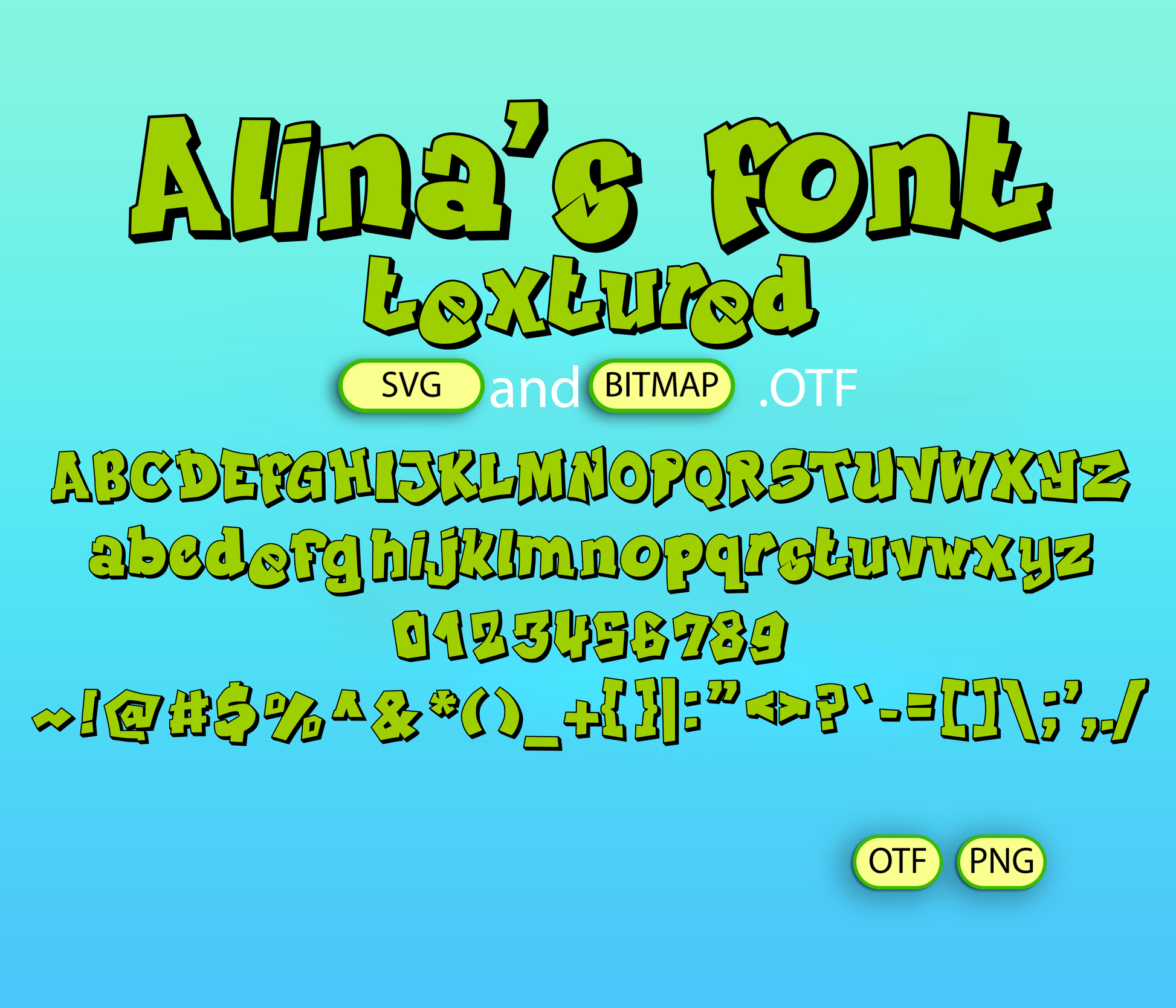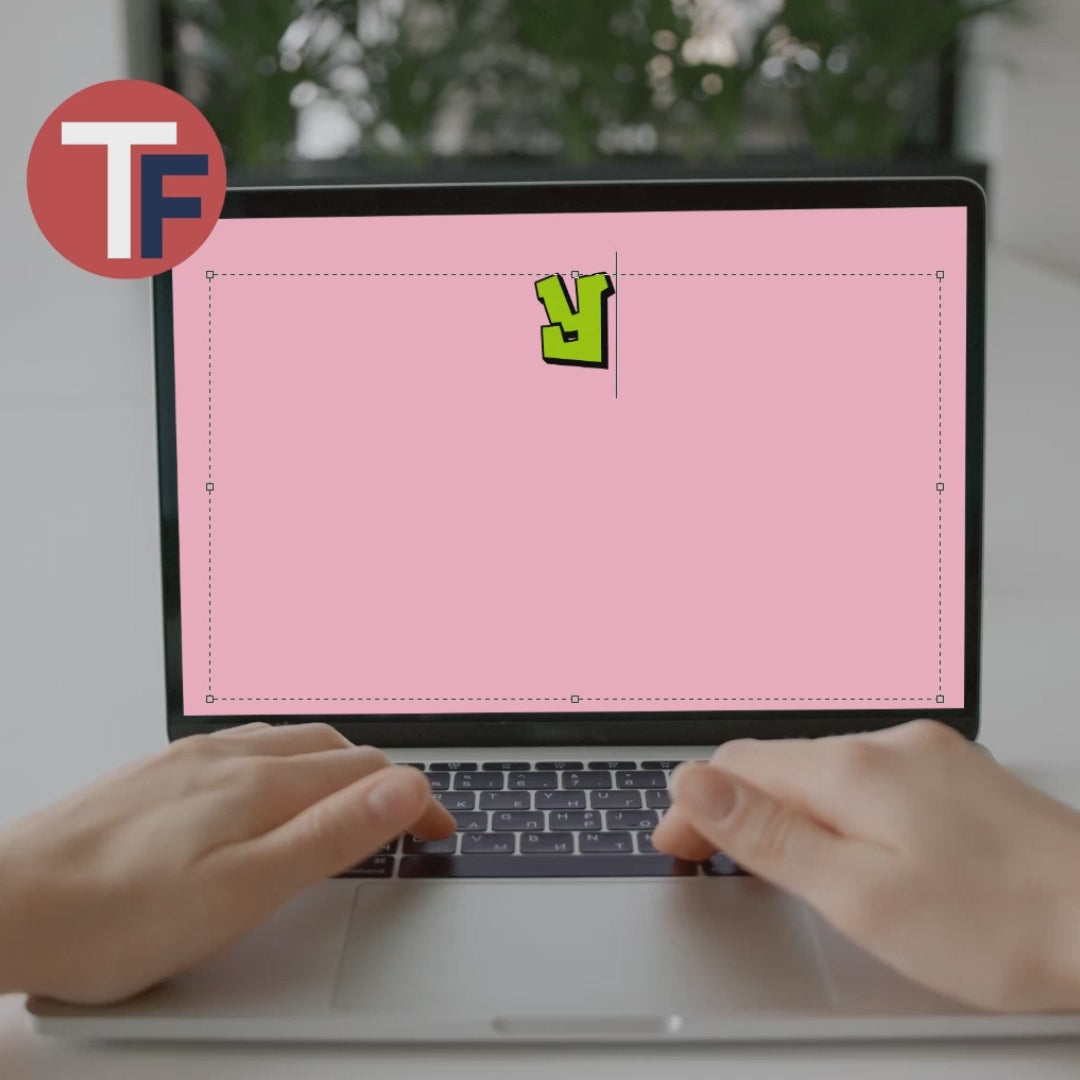
Iconic '90s Graffiti Font Textured
Iconic '90s Graffiti Font
Relive the '90s with our Iconic '90s-inspired font, capturing the vibrant and charismatic essence of a beloved sitcom. This font exudes the energy and bold style of the era, perfect for projects that channel the fun and flair of the time. Whether you're designing retro apparel, creating engaging digital content, or crafting unique merchandise, this font ensures your creations stand out with authentic '90s vibes.
Our font takes inspiration from the graffiti-style lettering and urban aesthetic that defined the show's look and feel. It includes a complete set of characters—upper and lower case, numbers, and special symbols—allowing for versatile design options that reflect the dynamic and youthful spirit of the '90s.
Versatile Applications
From Digital Design to DIY Projects, the Iconic '90s font is a versatile tool for various applications:
- Retro-Themed Apparel: Ideal for t-shirts, hoodies, and hats celebrating '90s fashion.
- Party Branding: Perfect for creating invitations and decorations for throwback parties.
- Digital Media: Enhance your online presence with eye-catching, nostalgic graphics.
- Personalized Merchandise: Design standout accessories like mugs, bags, and phone cases.
Designed for Ease and Creativity
Our Iconic '90s-inspired font lets you bring the '90s back to life with every letter you type, mixing nostalgia with contemporary design possibilities. It's perfect for fans of the era and anyone looking to add a touch of vintage charm to their creative projects. Get ready to turn heads and capture hearts with the unmistakable spirit of the '90s!